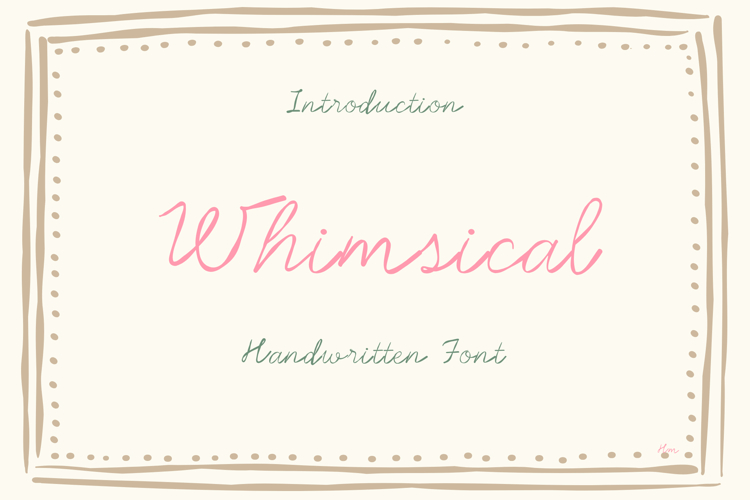
Meet Whimsical, a delicate and romantic handwritten font. Its gentle curves and natural flow make it perfect for wedding invitations, greeting cards, logos, stationery, and feminine branding projects.
Designed with love for creatives who adore simplicity and elegance, this font combines handcrafted charm with modern readability, making every word look effortlessly graceful.